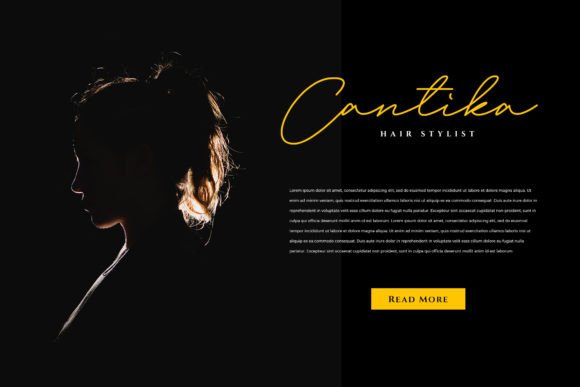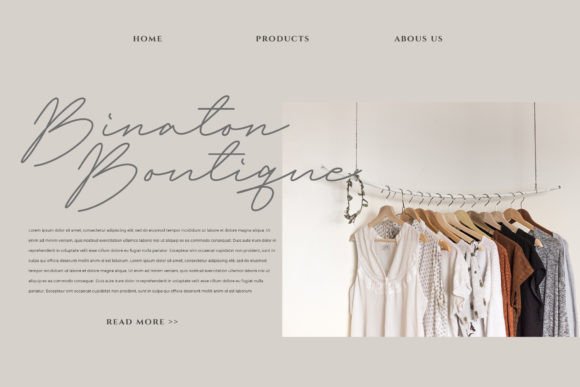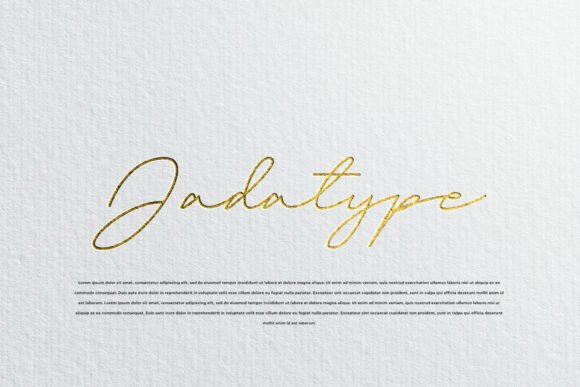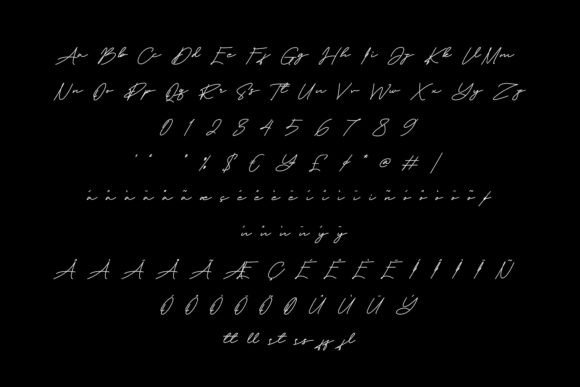
Introduction to Santrome Font
Have you ever stared at a blank canvas, feeling the pressure to create something truly unique and captivating? That’s exactly what I was facing the last time I embarked on a creative project. I needed a font that would transport my design to a luxurious realm, something that would elevate my message and leave a lasting impression. And then, I discovered the Santrome Font – a beautiful, light handwritten script font that’s been a game-changer in the world of design.
What sets the Santrome Font apart from other design resources is its ability to add a touch of elegance and sophistication to any project. Its unique feel and stunning impact make it the perfect choice for designers who crave high-quality fonts that can elevate their work.
Whether you’re working on a creative project that requires a free download or a design resource that can provide a transparent background, the Santrome Font is an invaluable asset that’s sure to spark inspiration and creativity.
Key Features of Santrome Font
- High-quality design resource suitable for creative projects, offering a unique and modern aesthetic.
- Transparent background option allows for seamless integration with different design elements and backgrounds.
- Available in multiple sizes, from 12pt to 72pt, catering to various design needs and requirements.
- Designed with high resolution in mind, ensuring crisp and clear display on both web and print materials.
- Comprehensive font family with multiple styles and weights, providing versatility for creative projects.
Honest Review: Santrome Font
I recently had the chance to work with the Santrome Font on a creative project, and I was pleasantly surprised by its versatility and unique style.
- ✨ Unique design: The Santrome Font has a distinct, modern aesthetic that sets it apart from more traditional fonts.
- ✨ High quality: The font is well-crafted and shows no signs of pixelation or distortion, even at larger sizes.
- ✨ Transparent background: The font’s transparent background makes it easy to use on a variety of design elements, from logos to backgrounds.
- ⚠️ Limited language support: Unfortunately, the Santrome Font only supports a limited number of languages, which may be a concern for designers working on multilingual projects.
- ⚠️ Not suitable for small text: While the font looks great at larger sizes, it may be difficult to read at smaller sizes, which could be a problem for designers who need to use the font in small text.
Overall, I was impressed by the Santrome Font’s unique style and high quality. While it may have some limitations, it’s a great resource for designers looking for a modern, free font.
You can use the Santrome Font in a variety of design software, including Canva, Adobe Photoshop/Illustrator, and PowerPoint/Word. Simply select the font from the font library and start typing your text. You can also adjust the font size, color, and style to suit your design needs.
To get the most out of the Santrome Font, experiment with different font sizes, colors, and styles to create a unique and eye-catching design. You can also combine the font with other design elements, such as images and graphics, to add depth and interest to your project.
The Santrome Font is ideal for a variety of creative projects, including brochures, posters, and business cards. Its high-quality design and transparent background make it a versatile design resource that can be used in a range of applications.
Alternatives to Santrome Font
Alex Brush Font is a high-quality, elegant script font ideal for creative projects that require a touch of sophistication. It features a transparent background and is perfect for designing logos, invitations, and other design elements. This font is available for free download and can be used as a design resource for both personal and commercial projects.
Compared to Santrome Font, Alex Brush Font has a more refined and polished look, making it suitable for high-end designs. While Santrome Font is great for casual and playful designs, Alex Brush Font is better suited for more formal and elegant projects.
Great Vibes Font is a beautiful, modern script font that is perfect for creative projects that require a sense of luxury and sophistication. It features a transparent background and is ideal for designing logos, branding materials, and other design elements. This font is available for free download and can be used as a design resource for both personal and commercial projects.
Can I use the Santrome Font with a custom background?
Yes, the Santrome Font has a transparent background, making it easy to use with custom backgrounds and designs. Simply import the font into your design application and use it as you would any other font, adjusting the opacity or layering as needed to achieve the desired effect.